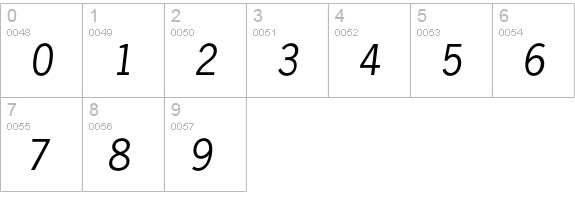
News Gothic Std Oblique Font Details
News Gothic Std Oblique is a distinctive, italic variant in the News typeface family \xE2\x80\x94 well suited to design and typography projects.
News Gothic Std Oblique font is a modern and versatile typeface that exudes a sense of professionalism and clarity. With its sleek and streamlined design, this font is perfect for a wide range of design projects, from editorial layouts to corporate branding. The oblique style adds a touch of dynamic movement to the text, making it stand out while maintaining readability. What's even better is that News Gothic Std Oblique font is available for free download at FontsMarket.com. This means you can easily access this high-quality font and incorporate it into your designs without any cost. Don't miss out on the opportunity to elevate your projects with the sophistication and elegance of News Gothic Std Oblique font. Download it today and see the difference it can make in your designs.